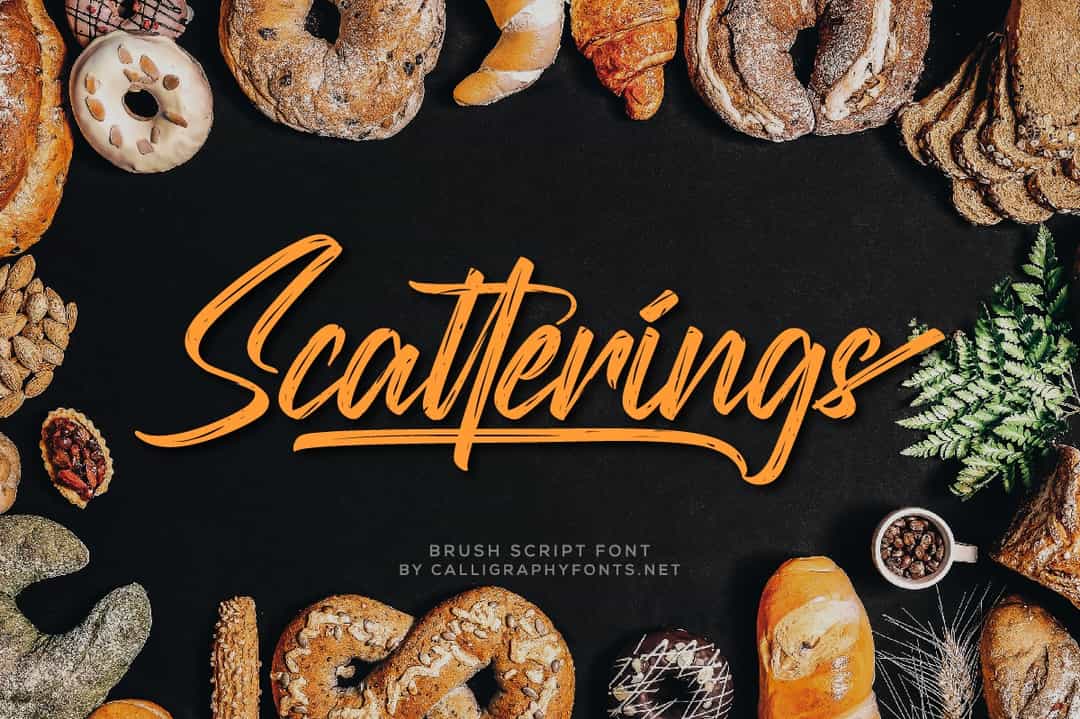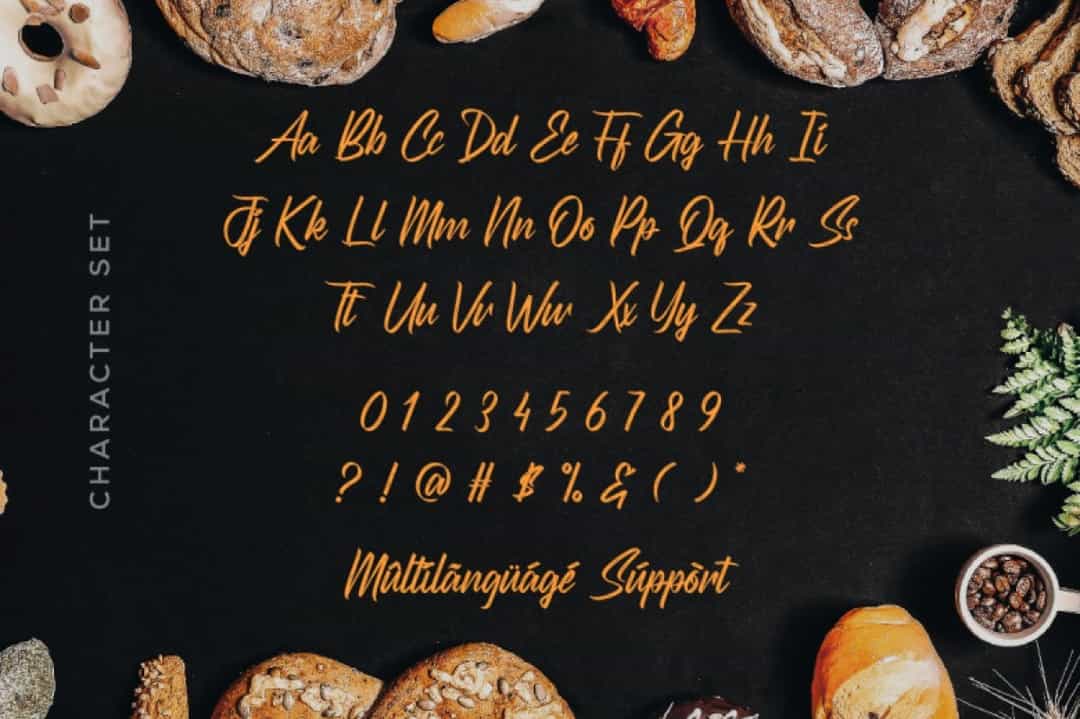
Scatterings is a brush font that has a unique style which consists of curves that are soft but with sharp edges at the same time, this font looks like a script that will attract the eye of the audience. The design is absolutely stunning and simplistic – simplistic in a way that one can only describe it as timeless and stunning with so many features! This font will definitely make the readers think.